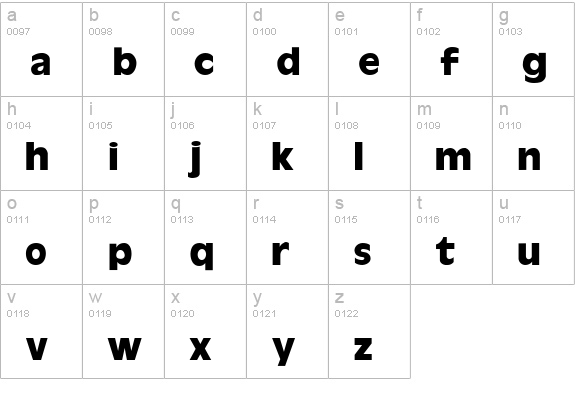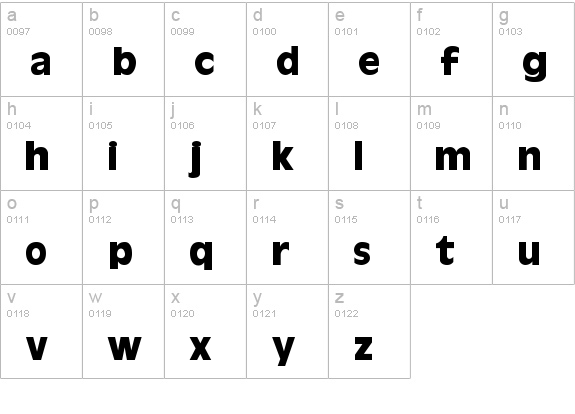
Cartes Display SSi Font Details
Cartes Display SSi font is a unique and eye-catching typeface that effortlessly combines elegant curves with modern simplicity. Its striking design makes it perfect for headlines, logos, and any project that requires a touch of sophistication. The clean lines and stylish flourishes of Cartes Display SSi font will instantly elevate your design to a whole new level. Best of all, this stunning font is available for free download at FontsMarket.com, making it easily accessible for all your creative needs. Add a touch of class to your projects with Cartes Display SSi font today!